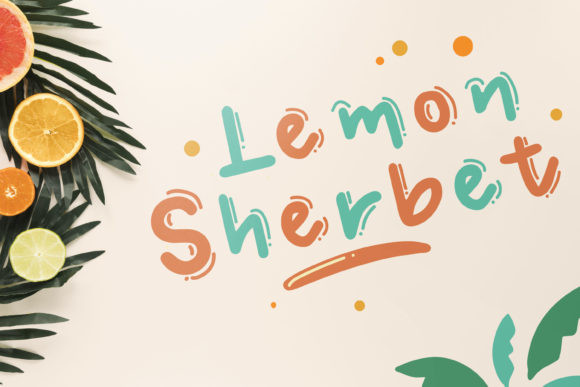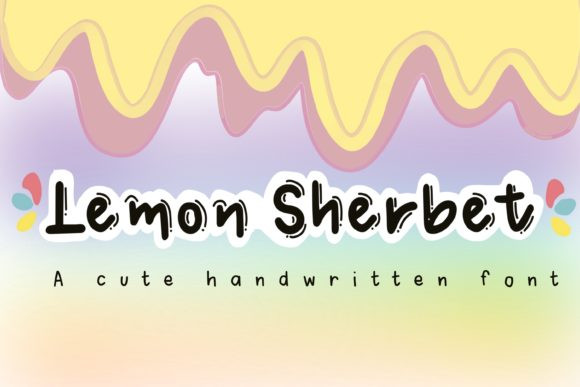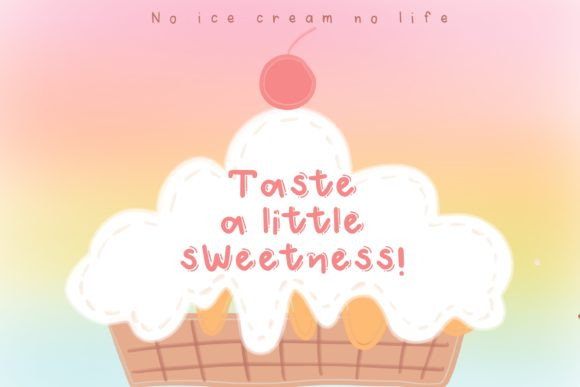
Lemon Sherbet Font
Lemon Sherbet embodies fun, quirkiness and authenticity. This enchanting handwritten font will turn any creative idea into a true standout.